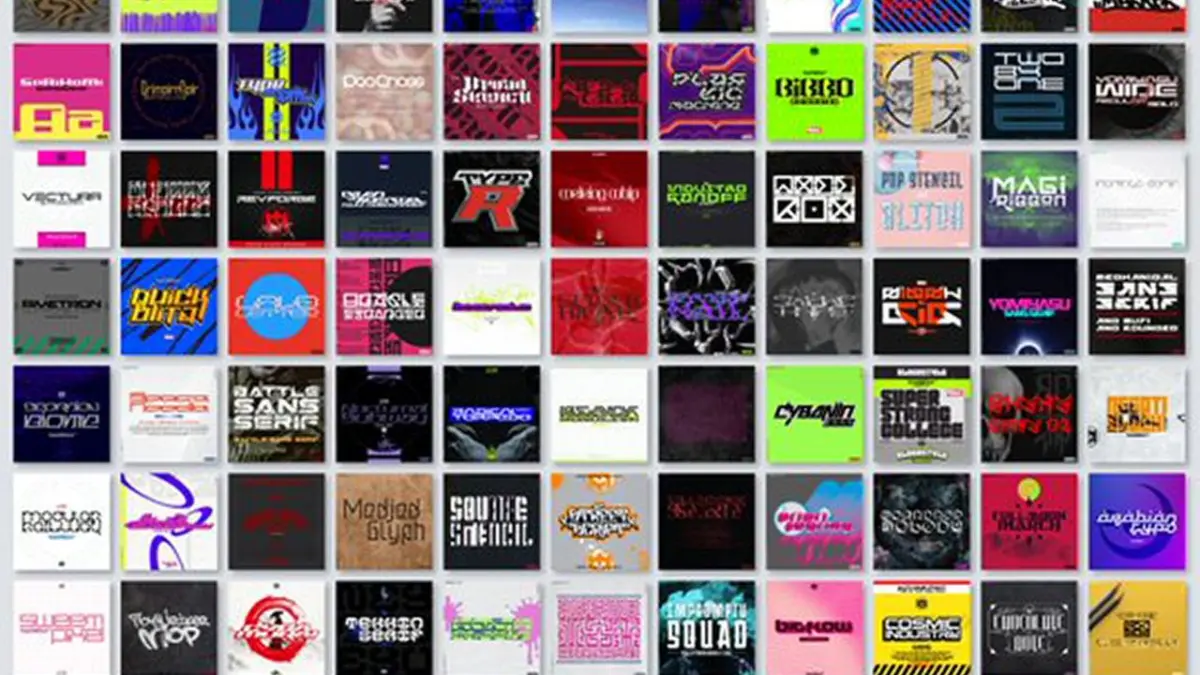
Acclaimed Designer Yuta ONE Drops Massive Free Font Collection to Celebrate 170,000 Followers on X
TOKYO — For graphic designers, typographers, and digital creators constantly on the hunt for fresh aesthetic assets, few finds rival the thrill of a high-quality, professionally crafted typeface. That excitement has reached a fever pitch this week as renowned Japanese typography and logo designer Yuta ONE launched a massive, limited-time giveaway.
To commemorate reaching a major milestone of 170,000 followers on the social media platform X (formerly Twitter), the artist has released a staggering collection of approximately 200 OpenType Font (OTF) files completely free of charge. Known across the digital landscape for his striking, razor-sharp blackletter designs, intricate gothic scripts, and edgy graffiti styles—as well as his prominent branding work for virtual YouTubers—Yuta ONE’s latest drop is nothing short of a typographic treasure trove.
Main Facts: What is Included in the Yuta ONE Giveaway?
At the core of this viral digital event is an expansive repository of typographic design work accumulated throughout the artist’s career.
• The Scale of the Release: The primary download package features roughly 200 OTF files, offering creators an unprecedented variety of typefaces to experiment with in their projects.
• Stylistic Diversity: While Yuta ONE is primarily celebrated for his dark, moody, and aggressive blackletter and gothic scripts, the bundle spans a surprisingly broad spectrum. The collection includes futuristic, sci-fi-inspired typefaces, urban graffiti fonts, and refined calligraphic lettering.
Chronology: From Inline Skater to Digital Typography Icon
To understand the weight and distinct character of Yuta ONE’s fonts, one must look back at the unconventional trajectory that forged his artistic identity. His journey into the world of professional design was not born in a traditional fine arts academy, but rather on the asphalt streets of Japan.
Early Beginnings and Street Culture
Long before crafting digital branding for elite virtual idols, Yuta ONE was deeply immersed in street culture as an inline skater. Cruising through urban landscapes exposed him to the raw, unfiltered energy of street art, graffiti, and skate graphics. Fascinated by the dynamic lettering spray-painted on walls and printed on deck designs, he began teaching himself the fundamentals of graffiti and traditional calligraphy.
Transition to Digital Branding and Blackletter
Over time, Yuta ONE’s fascination with letterforms evolved from casual sketching into a disciplined study of typography, with a particular emphasis on blackletter—a script used in Western Europe from the 12th to the 17th centuries, characterized by dramatic, heavy strokes and sharp angles. By blending traditional blackletter geometry with modern Japanese graphic sensibilities, he carved out a unique niche for himself in the digital design sphere.
Mainstream Recognition and VTuber Collaborations
Yuta ONE’s distinctive aesthetic eventually caught the attention of major players in Japan’s booming virtual entertainment industry. He became a sought-after creator for digital branding, logo design, and promotional artwork, most notably collaborating with COVER Corporation’s immensely popular Hololive agency. Among his most celebrated mainstream contributions is the striking title logo and dynamic jacket illustration for the single “SM4SH IT UP” by Tokoyami Towa, a prominent member of Hololive’s fourth generation of virtual YouTubers.
As his portfolio expanded, so did his digital footprint. Recognizing the power of community-driven platforms, Yuta ONE became exceptionally active on X, frequently sharing design tutorials, work-in-progress updates, and strategic tips for aspiring typographers. His follower count steadily climbed as graphic designers, anime fans, and digital artists rallied around his distinctive visual style.